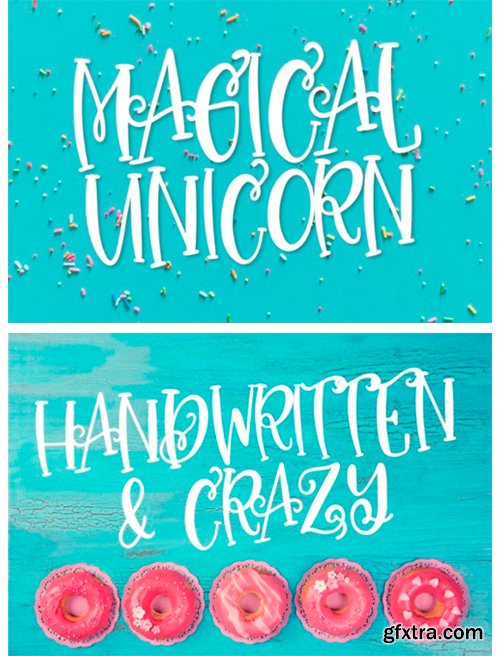
Magical Unicorn Duo Font
Magical Unicorn Duo is a cute and casual display font with an incredibly friendly feel. It features gorgeous swashes and ligatures that make this script incredibly versatile. Whether you’re looking for fonts for Instagram or calligraphy scripts for DIY projects, Magical Unicorn Duo will turn any creative idea into a true piece of art!